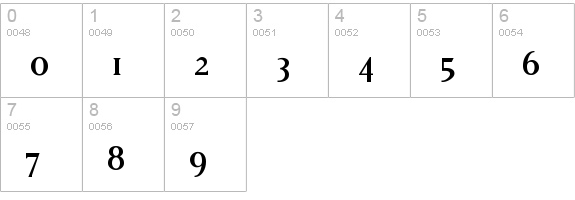
MatrixOldstyle Regular Font Details
MatrixOldstyle Regular is the standard, neutral variant in the MatrixOldstyle typeface family \xE2\x80\x94 well suited to general body text, paragraphs, and standard typographic work.
Introducing MatrixOldstyle Regular font, a timeless and classic typeface that exudes sophistication and elegance. With its vintage charm and traditional design, MatrixOldstyle Regular is perfect for adding a touch of nostalgia to your projects. This exquisite font is available for free download exclusively at FontsMarket.com, making it easily accessible for all design enthusiasts and professionals. Whether you're creating a vintage-inspired logo, designing a stylish poster, or crafting elegant invitations, MatrixOldstyle Regular is sure to elevate your work with its timeless appeal and versatility. Don't miss out on the opportunity to enhance your designs with this elegant and refined font. Download MatrixOldstyle Regular today and bring a touch of old-world charm to your creations.